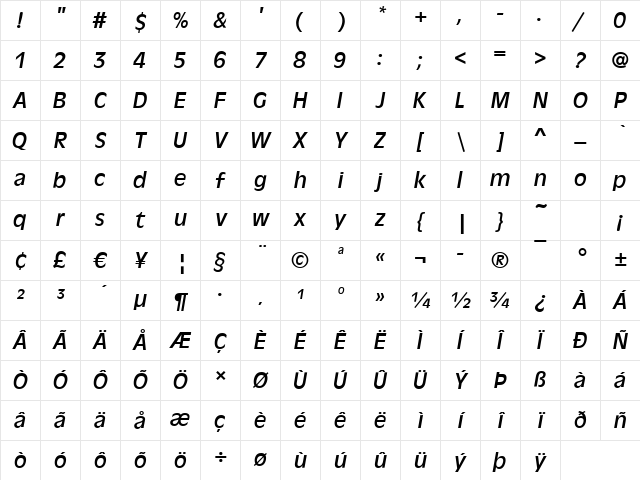
Antigone Italic Free Font
Antigone Italic
Design Context for Antigone
Antigone is a composed and adaptable typeface that performs quietly and consistently across a wide range of design contexts. The slanted form adds forward momentum and visual energy.